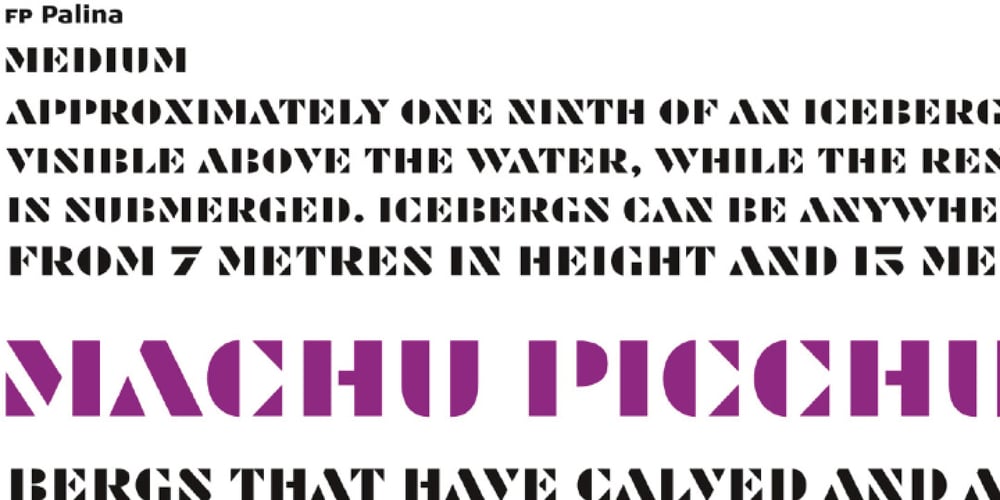
FP Palina
FP Palina font
FP Palina Font Family was designed by Ole Berntsen Søndergaard and published by Fontpartners. FP Palina contains 1 styles and family package options. FP Palina is a very simple and geometric, stencil typeface with a strong graphic design.